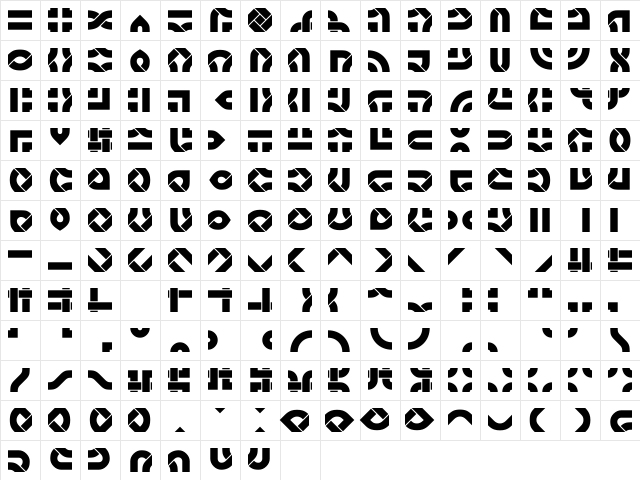
Celtic Knots Filled Regular
Design Context for Celtic Knots Filled Typeface
Celtic Knots Filled is a composed and adaptable typeface that performs quietly and consistently across a wide range of design contexts.